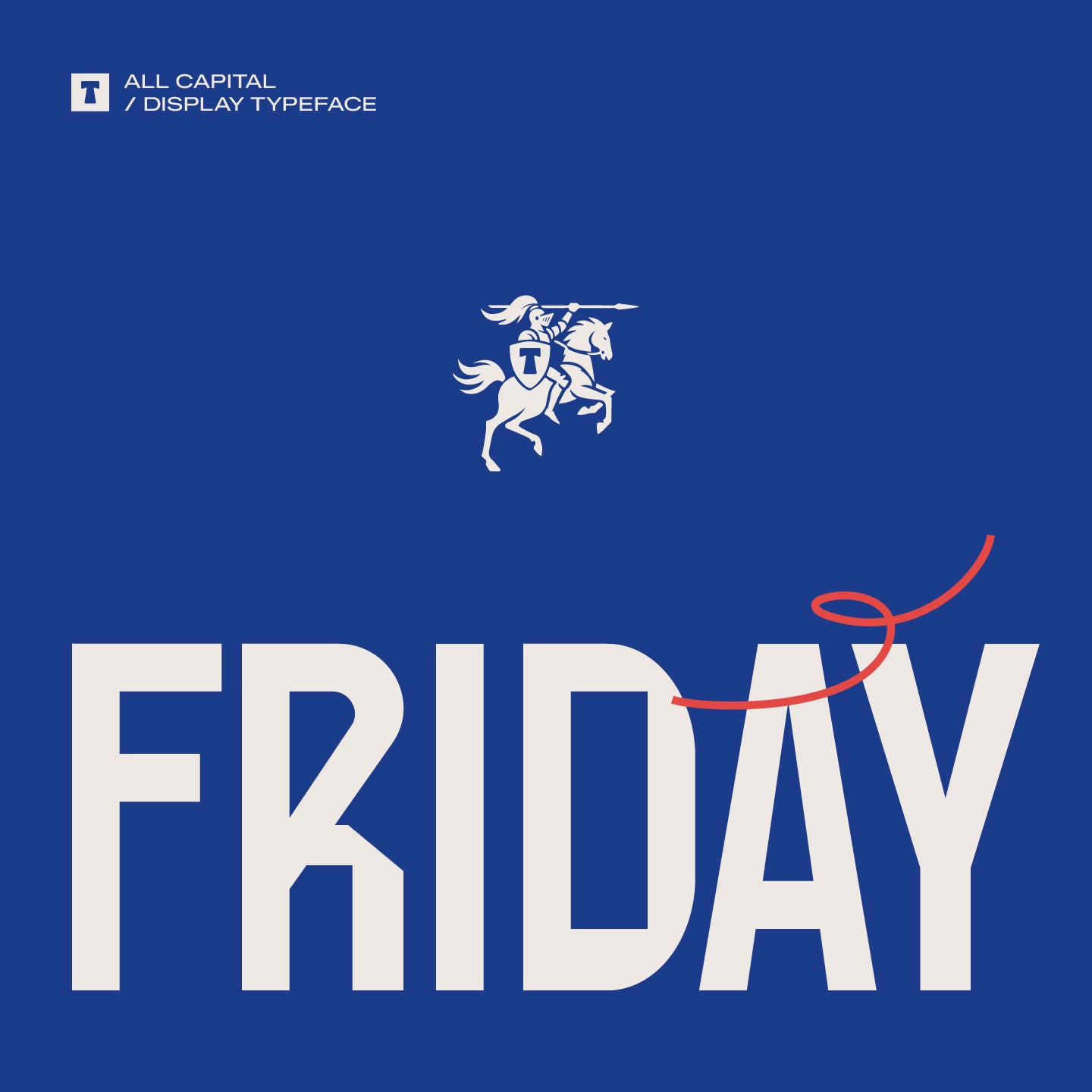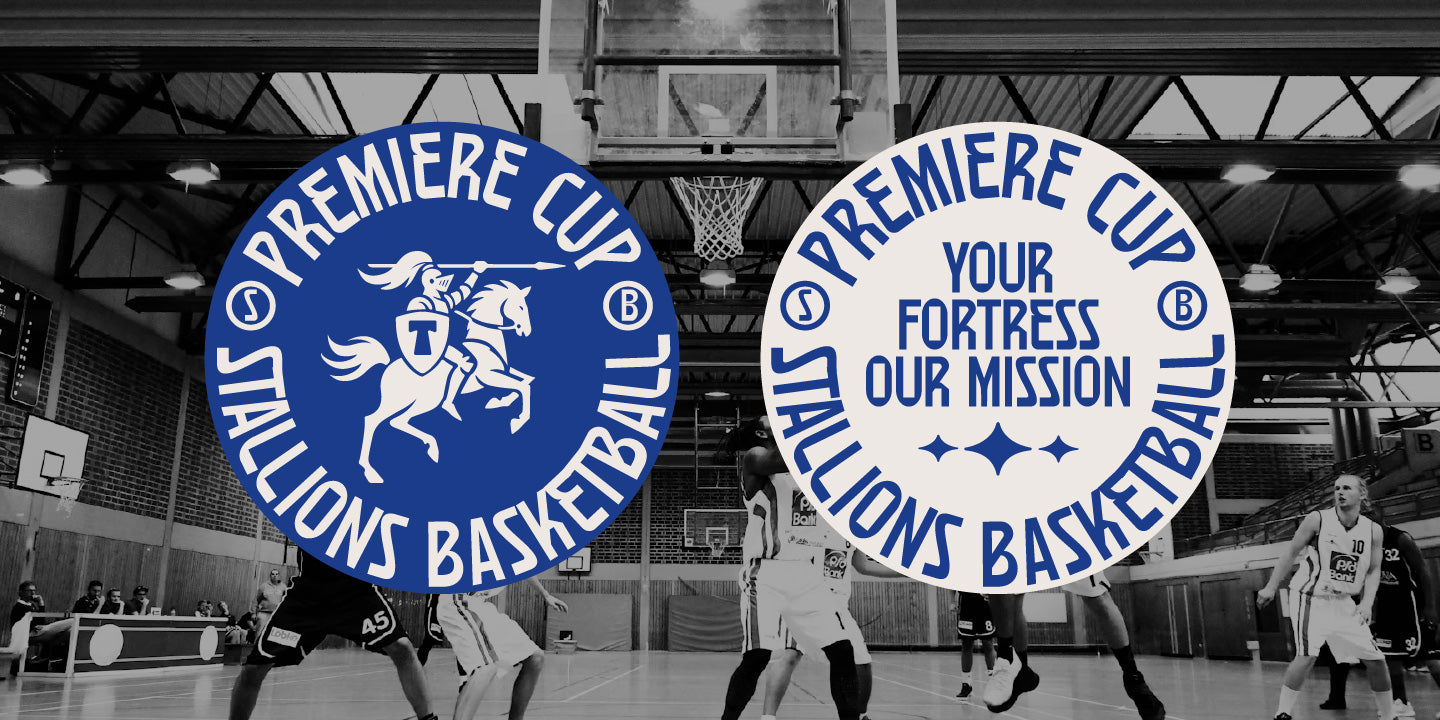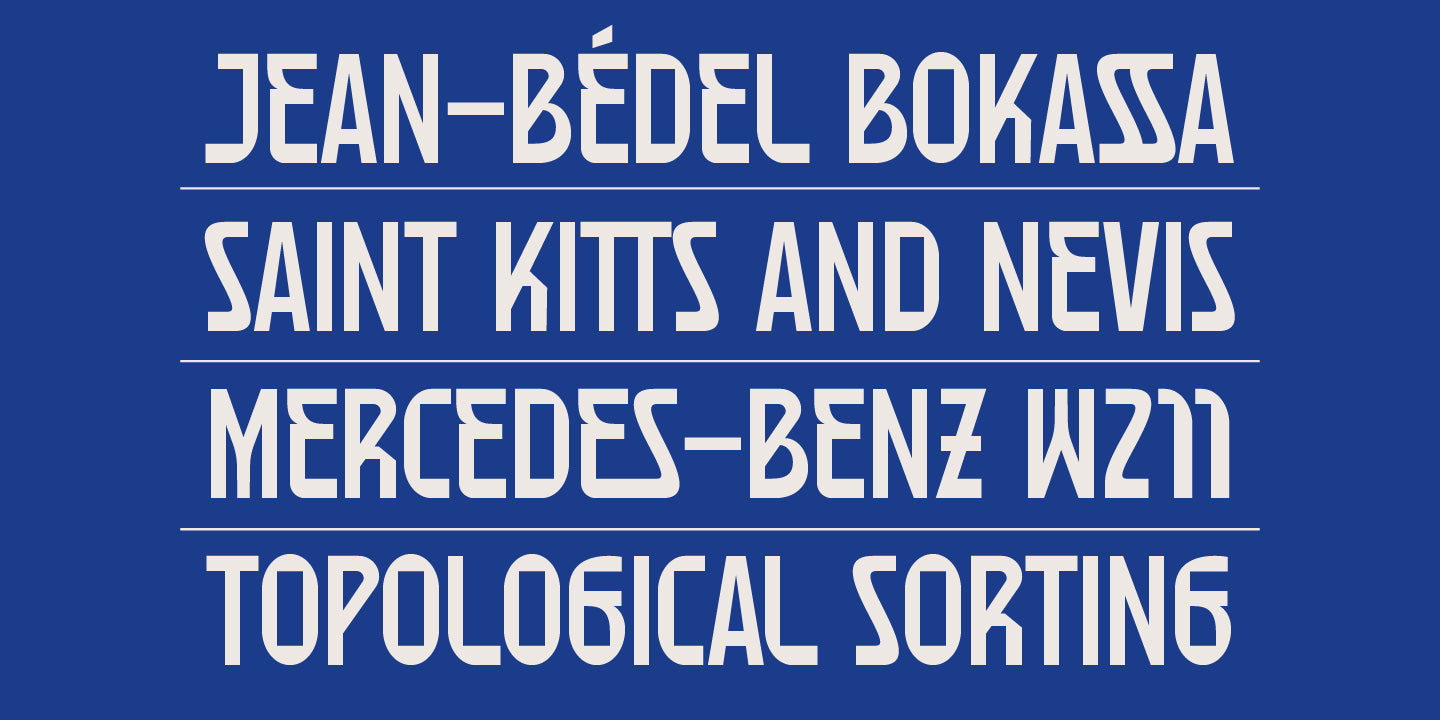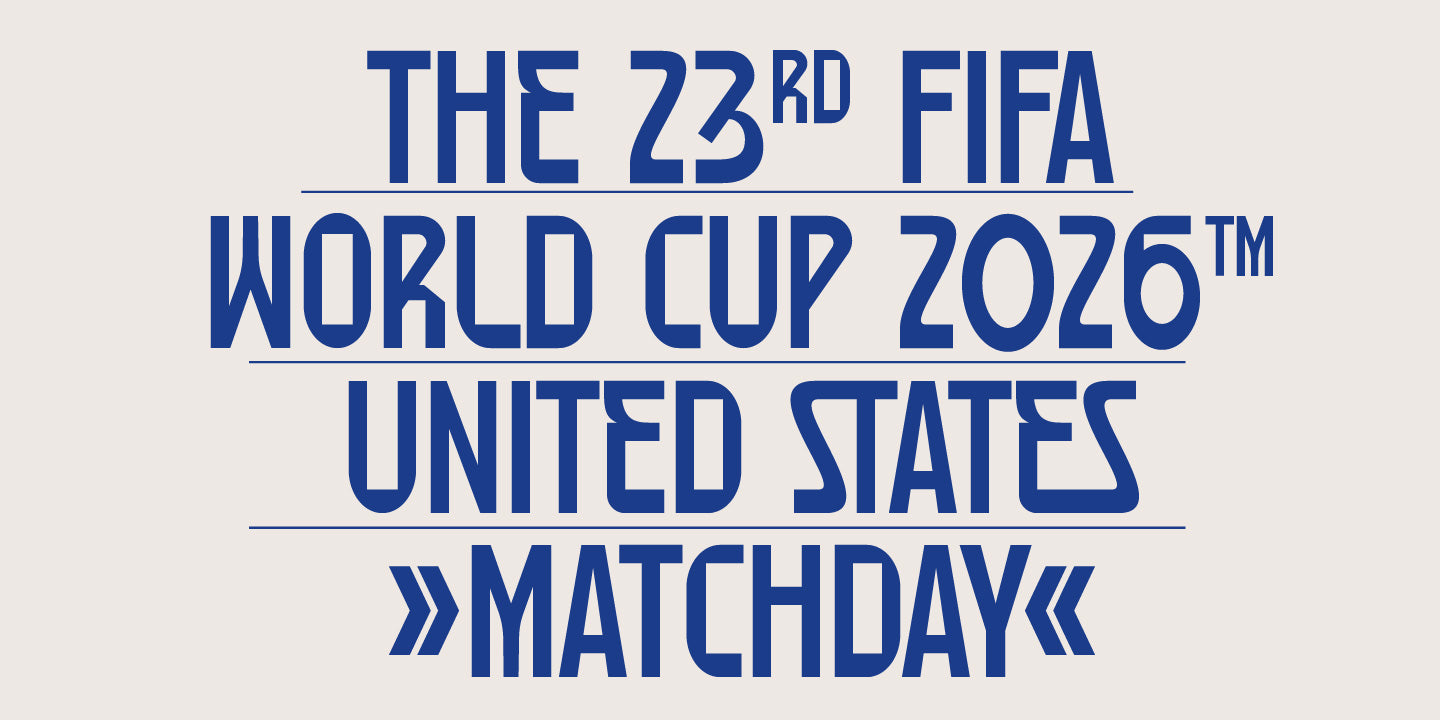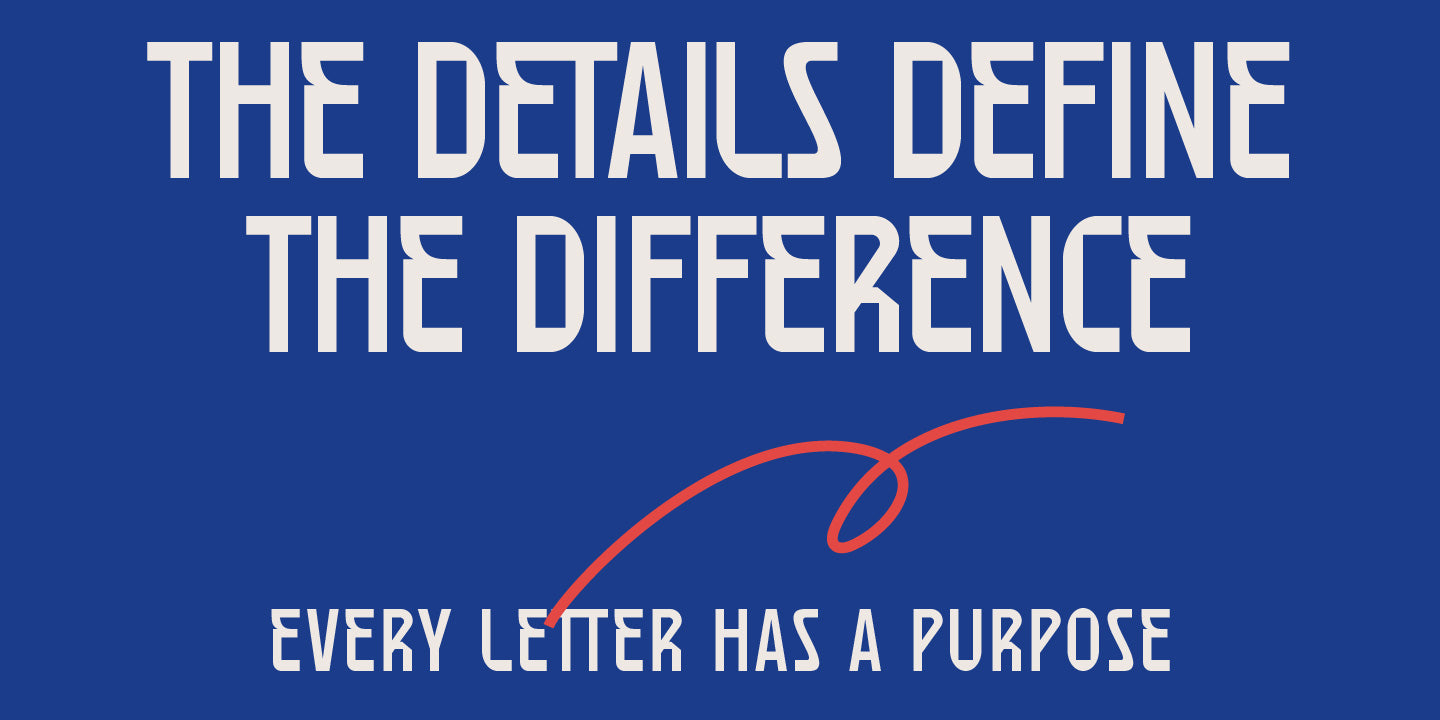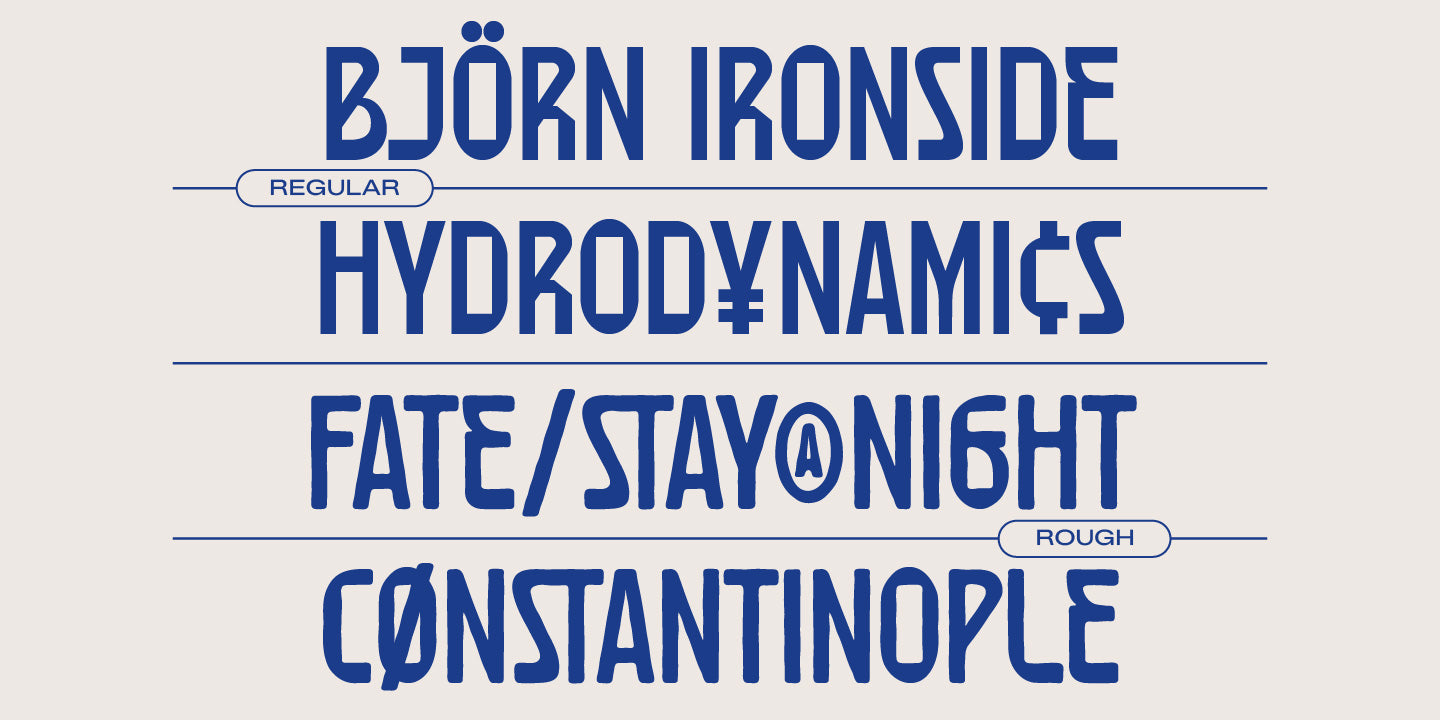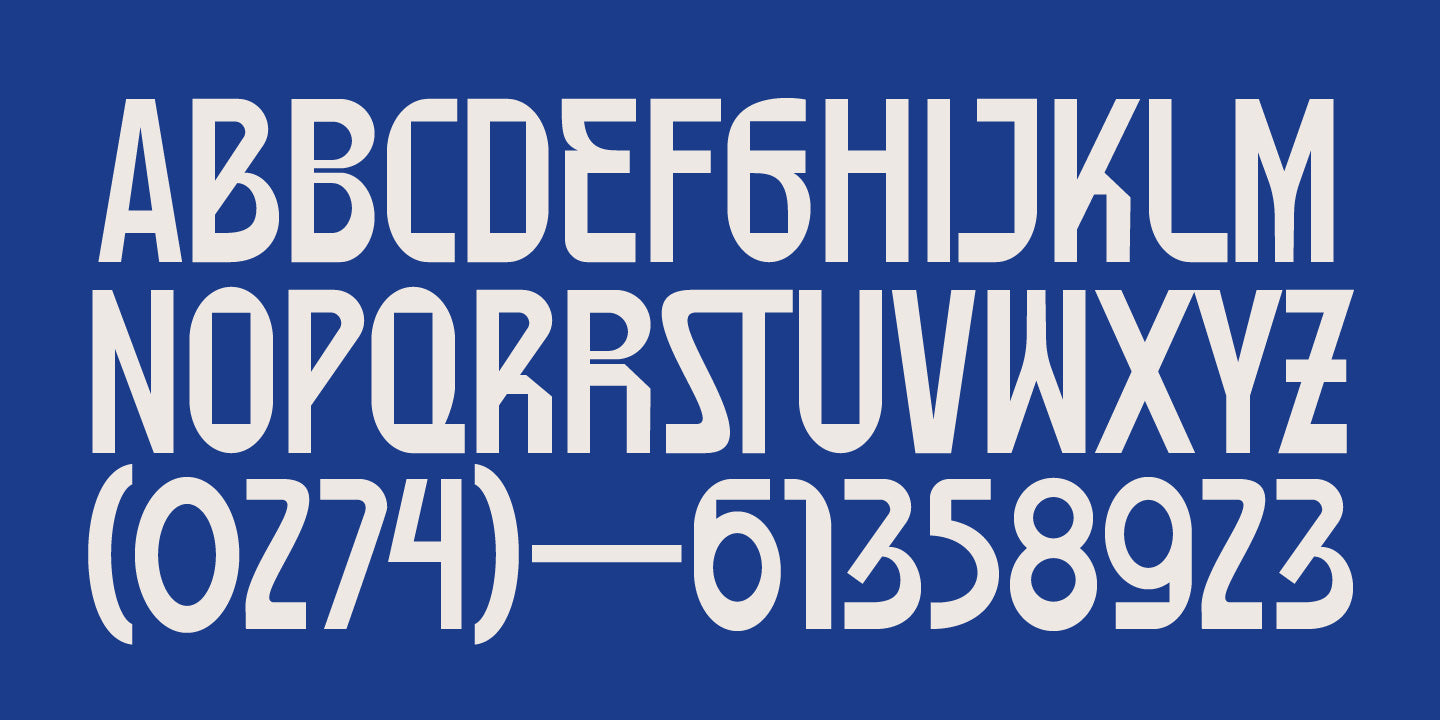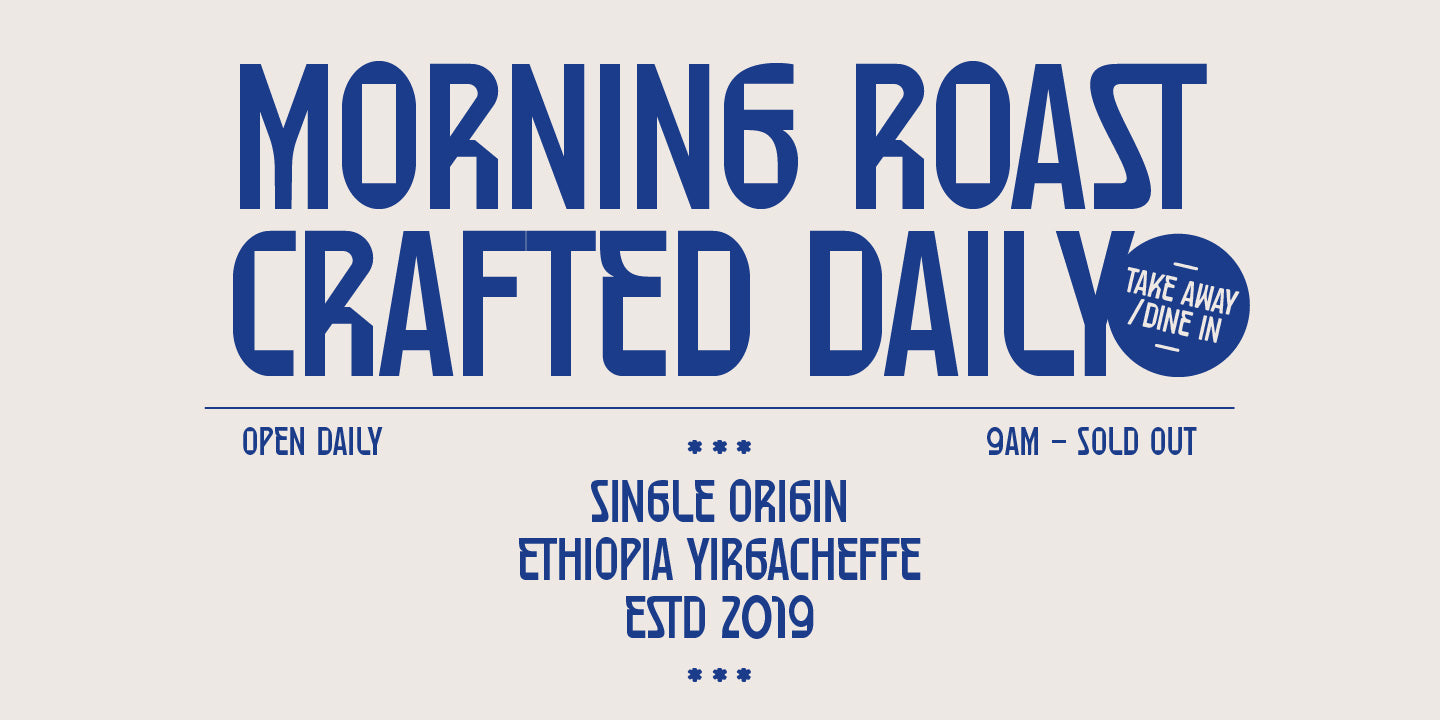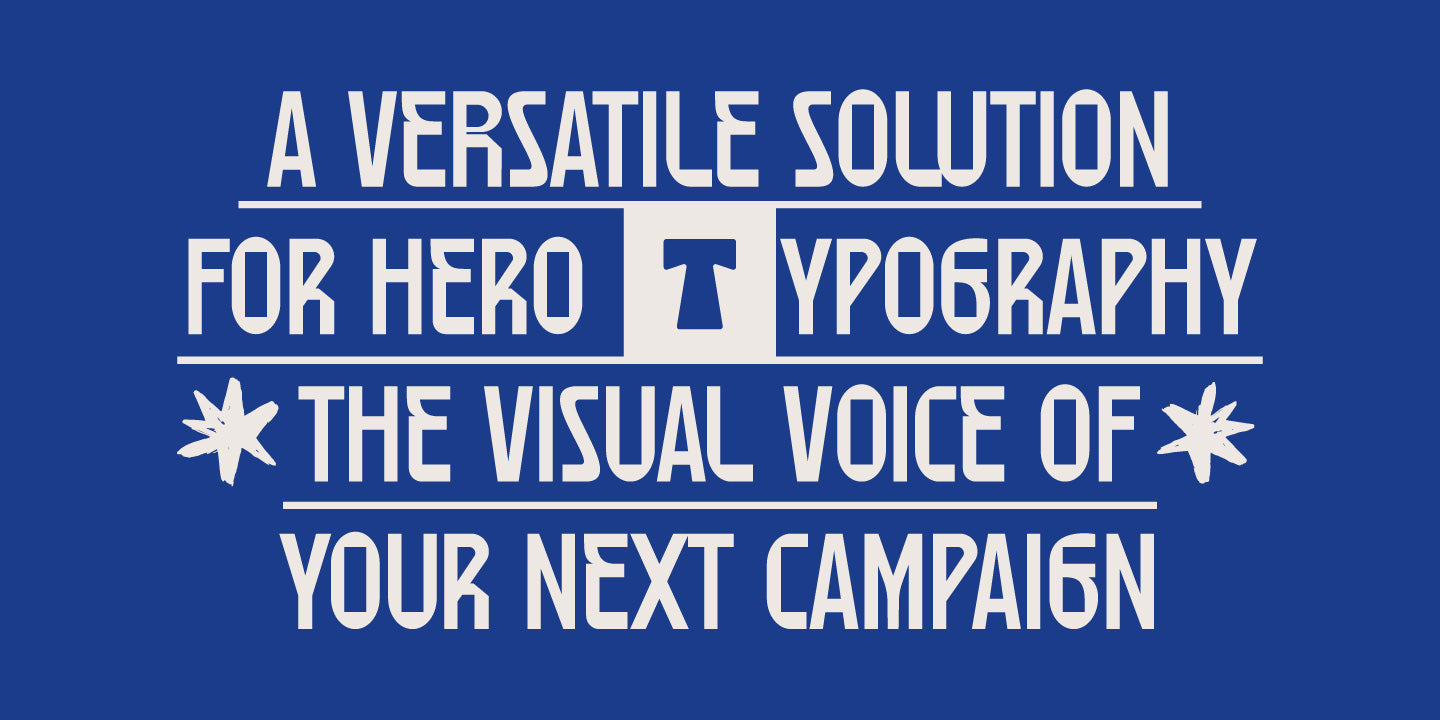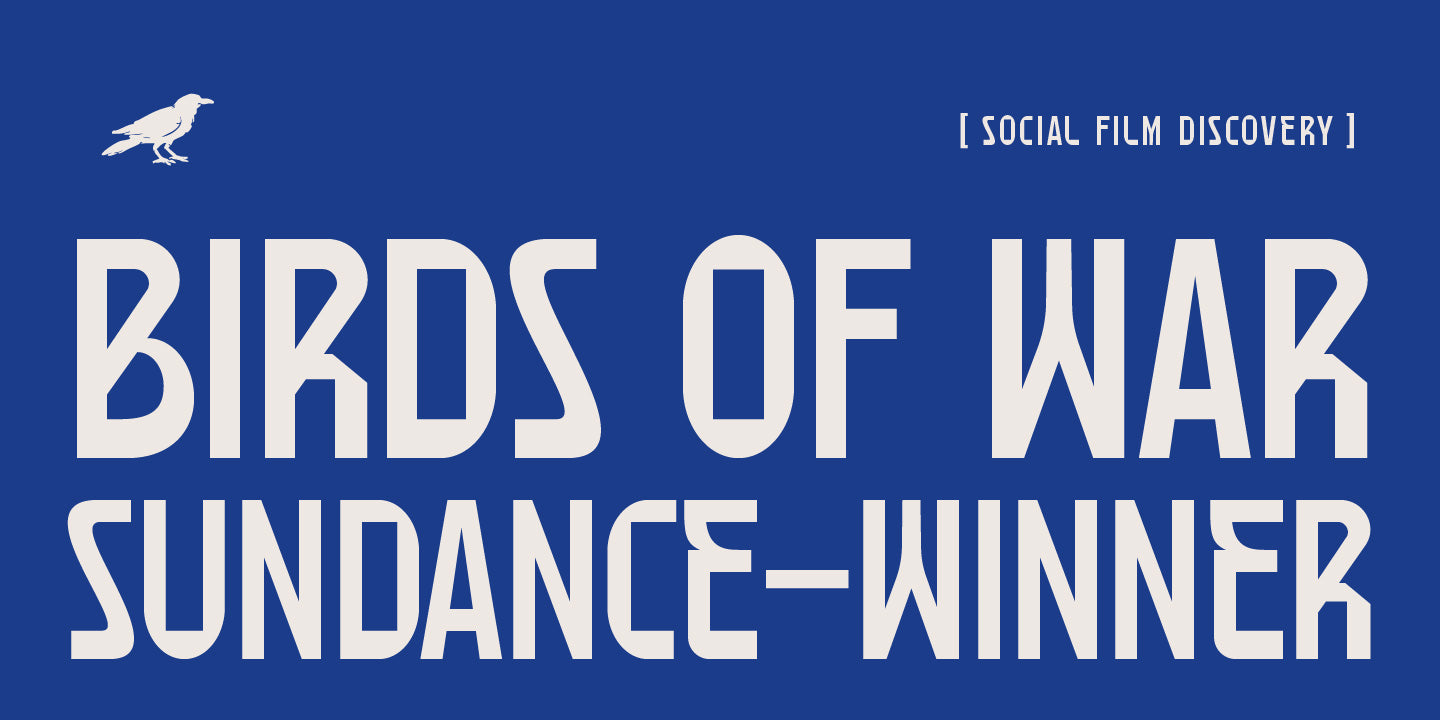
ST Friday – All Capital Display Typeface
Bold, structured, and razor-sharp.
ST Friday is a high-impact, all-caps display typeface designed to bring powerful architecture and confident geometry to your layouts. Featuring ultra-clean condensed proportions, strong vertical presence, and distinctive angular interior cuts (seen across characters like R, D, and A), ST Friday delivers an unmistakable blend of modern brutalism and contemporary editorial refinement.
Engineered specifically for dominant headlines, streetwear branding, poster artwork, magazine titles, and high-contrast packaging, ST Friday commands space effortlessly whether used tight or scaled massive.
Key Features:
• All-Caps Architecture: Formatted strictly in uppercase for maximum visual uniformity and impactful title design.
• Distinctive Angular Cuts: Unique inner-joint geometry that adds sharp, athletic, and contemporary flair.
• Condensed Proportions: Optimized for tall headline stacking, tight tracking, and large display banners.
Recommended Uses:
• Big editorial headlines, cover art, and zine typography
• Sportswear, streetwear, and merchandise branding
• High-impact event posters, flyers, and digital billboards
• Modern packaging, identity marks, and logotypes
ST Friday is a bold, all-caps display typeface characterized by its clean condensed proportions and distinctive angular cuts. Designed for impactful headlines and branding, it is available in OTF, TTF, and Webfont formats, making it suitable for various high-visibility applications.